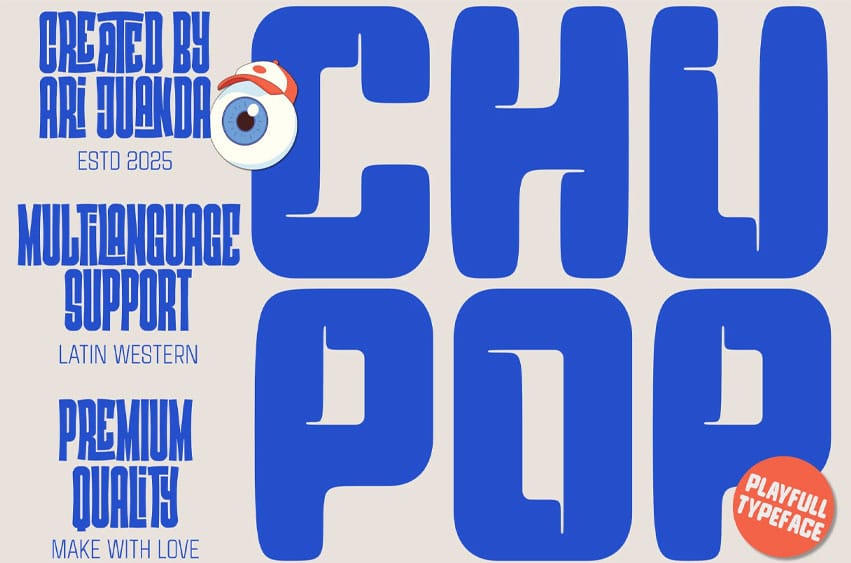
Chupop Font is a bold and playful typeface bursting with pop-style energy. Inspired by the whimsical shapes of cute balloons, Chupop brings a cheerful and lighthearted vibe to any design.
Its thick, rounded forms and bouncy character exude a sense of fun and friendliness, making it perfect for children’s themes, party invitations, branding, packaging, or anything that needs a splash of joyful personality. Chupop captures the spirit of celebration—bright, bubbly, and full of charm.